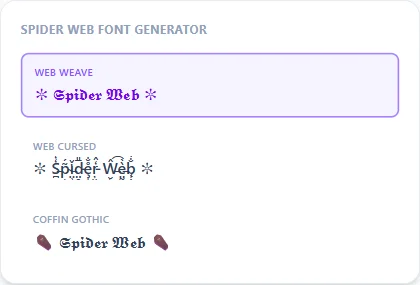
Spider Web Font Generator
"Spider web font" is one of the more specific Halloween-cluster searches, so this page keeps it direct: Web Weave wraps a blackletter look in ✼ marks for a web-strand frame, and Web Cursed adds a light layer of glitch distortion for something closer to a web that's already torn.
Both sit inside the same general-Halloween family as the coffin styles on the scary font generator page — start there for more options in the same spooky-but-readable range.
Spider Web Font Generator style examples: Web Weave, Web Cursed, Coffin Gothic, rendered on the word "Spider Web"
Web Weave vs. Web Cursed
Web Weave keeps the ✼ frame clean around a blackletter base, good for a caption or username that still needs to read clearly. Web Cursed layers a light zalgo-style distortion on top of the same frame, for a shorter line that should look more torn or unstable.
Where this fits alongside the rest of the Halloween cluster
This page, the scary font generator, and the creepy text generator all draw from the same combining-mark technique but stay tuned to different moods — spider-web-specific here, general Halloween on the scary page, and gore/cursed-image horror on the creepy page. Check either of those if the ✼ frame here isn't quite the right fit.
Is there more than one spider web style?
Yes, two — Web Weave for a clean, readable frame, and Web Cursed for the same frame with an added glitch distortion on top.
How is this different from the scary font generator page?
This page uses a spider-web-specific ✼ frame; the scary font generator page uses a coffin-shaped ⚰ frame instead. Both cover the same general Halloween mood with different visual marks.
Will the glitch marks in Web Cursed make my text hard to read?
At a short caption length, no — it stays legible. Stack it across a much longer message and the extra marks start to slow down reading, the same tradeoff any combining-mark style runs into at length.